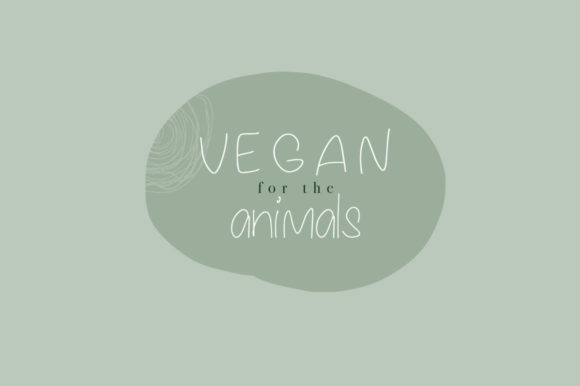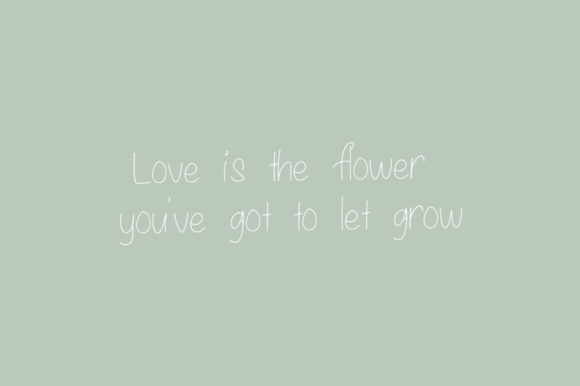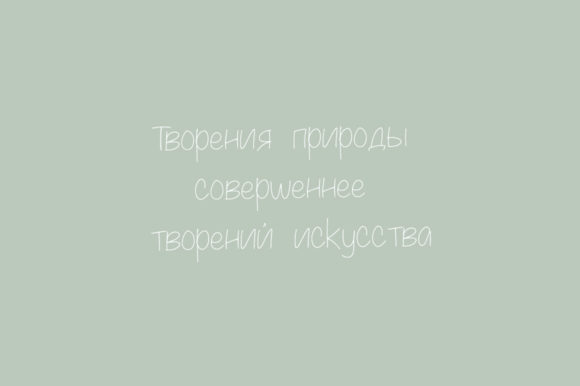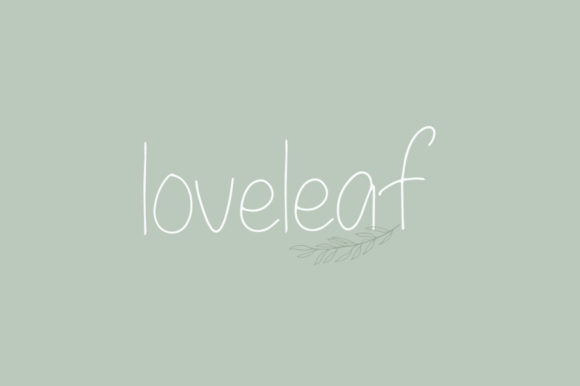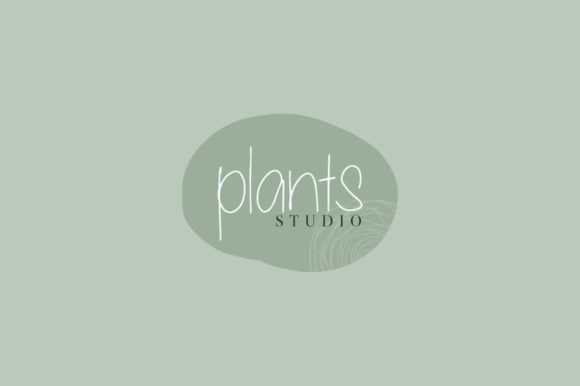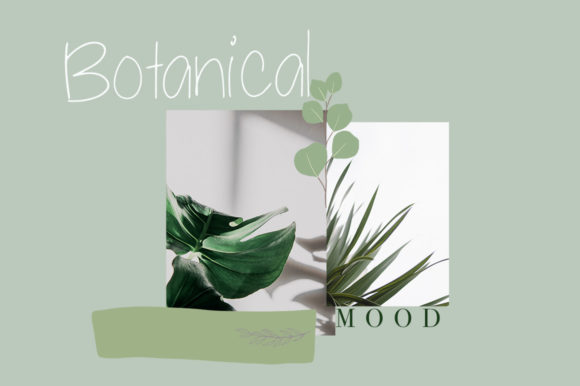
Introduction to Palmetto Font
Have you ever been working on a creative project, staring at a blank page, trying to find the perfect font to bring your idea to life? I’m sure many designers can relate to that moment of frustration, when you just can’t seem to find the right design resource to match your vision. But what if I told you there’s a font that can make your projects stand out in a crowd, without breaking the bank or sacrificing quality?
Enter the Palmetto Font, a charming, thin, and playful handwritten font that’s perfect for adding a touch of whimsy to your designs. With its high-quality design and versatility, it’s no wonder this font has become a favorite among designers looking for a reliable design resource. And the best part? It’s available for free download, making it an invaluable asset for any creative project.
Key Features of Palmetto Font
- High-quality design resource perfect for creative projects requiring a unique touch
- Transparent background allows for seamless integration into any design
- Font size: 200-400 characters per line, ideal for titles and headings
- Resolution: 300 DPI, suitable for printing and digital use
- Unique, hand-drawn style with a touch of elegance and sophistication
- Perfect for designers and artists looking for a high-quality, free design resource
Honest Review: Palmetto Font
I recently stumbled upon the Palmetto Font and I must say, I’m impressed. As a designer, I’m always on the lookout for high-quality design resources that can elevate my creative projects.
The Palmetto Font is a great find, especially since it’s available for free download. The font has a unique and elegant feel to it, making it perfect for any project that requires a touch of sophistication.
- Unique and elegant design
- High-quality font files
- Compatible with most design software
While the Palmetto Font is a great addition to any design resource library, I did notice a few limitations:
- Not suitable for bold or large-scale text
- No transparent background option
Overall, I’m impressed with the Palmetto Font and would highly recommend it to designers looking for a high-quality, elegant font for their creative projects.
How to Use Palmetto Font
The Palmetto Font is a high-quality design resource that offers a unique and stylish look for your creative projects. With a transparent background, this font is perfect for adding a touch of elegance to your designs.
Tips for Getting the Most Out of the Palmetto Font
To get the most out of the Palmetto Font, try combining it with other design elements, such as images and graphics. You can also experiment with different font sizes and colors to create a unique look.
The Palmetto Font is perfect for a variety of creative projects, including:
When to use: Formal and professional designs, where a sophisticated and timeless look is required.
Comparison to Palmetto Font: Caslon has a more traditional and formal feel, whereas Palmetto Font is more modern and playful. While Palmetto Font has a more transparent background, Caslon’s design is more intricate and ornate.
Didot
Didot is a high-end serif font that is ideal for luxury branding, fashion, and high-end design projects. It features a sophisticated and elegant design with a transparent background that adds to its luxury feel.
When to use: Luxury and high-end design projects, where a premium and sophisticated look is required.
Comparison to Palmetto Font: Didot has a more refined and elegant feel, whereas Palmetto Font is more modern and playful. While Palmetto Font has a more transparent background, Didot’s design is more ornate and intricate.
Playfair Display is a luxurious and elegant serif font that is suitable for high-end design projects, such as branding, advertising, and editorial design. It features a high-quality design with a transparent background that adds to its luxury feel.
Does the Palmetto Font have a transparent background?
No, the Palmetto Font does not have a transparent background. However, you can use a font editor or design software to create a transparent version of the font, or use a design technique such as layer blending to achieve a similar effect.